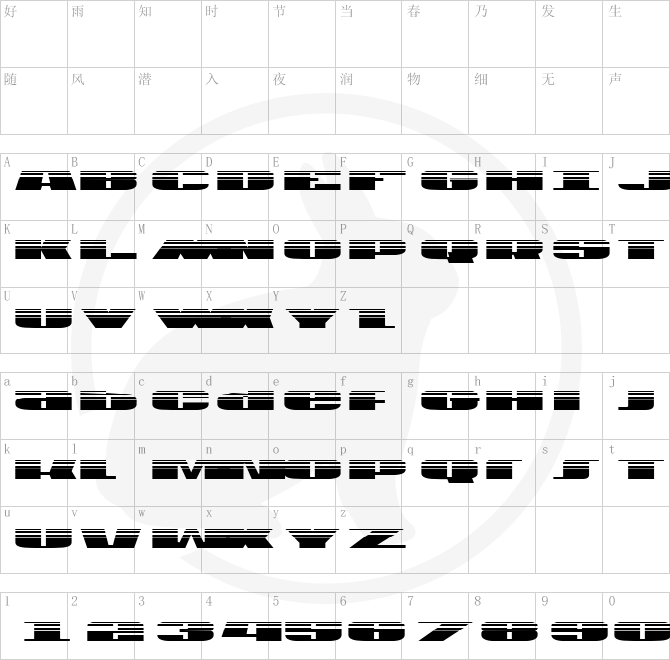
- Font Name:U.S.A. Gradient
U_S_A-Gradient.ttf is a very beautiful artistic font, U_S_A-Gradient.ttf is widely used in the design and printing of various books and pictures,U_S_A-Gradient.ttf has a strong visual impact,U_S_A-Gradient.ttf is a commonly used font in newspapers, magazines and books, and is used in posters, e-commerce Poster design, store design, logo design, font design and other fields.U_S_A-Gradient.